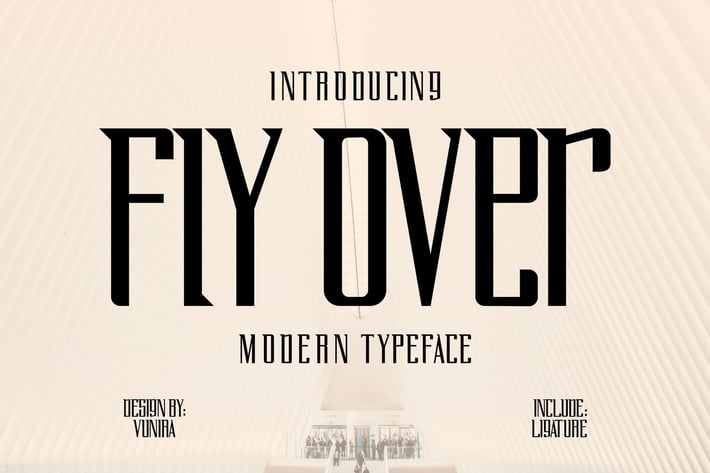
Fly Over | Modern Typeface Font
Fly Over | Modern Typeface Font with a calligraphy style, So beautiful on invitation like greeting cards, branding materials, business cards, quotes, posters, and more!